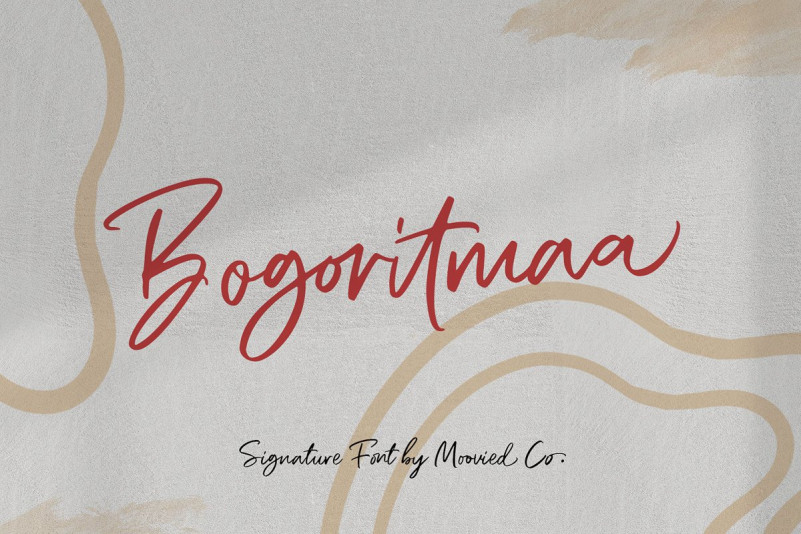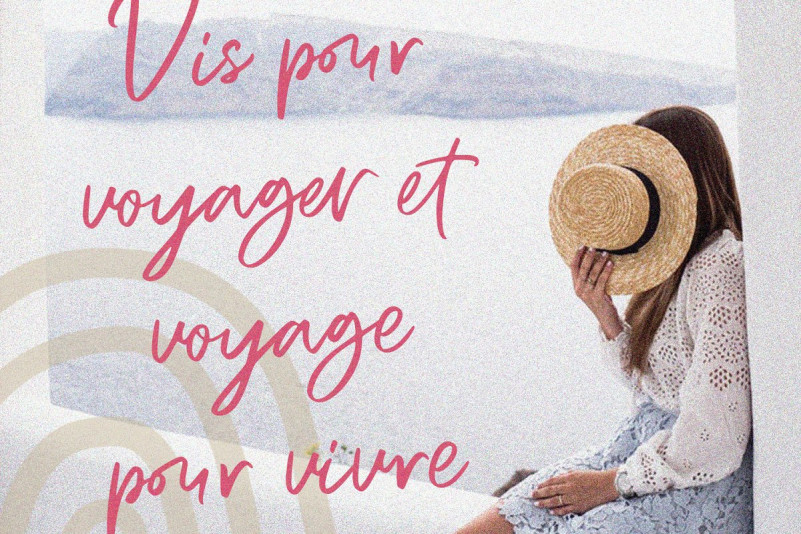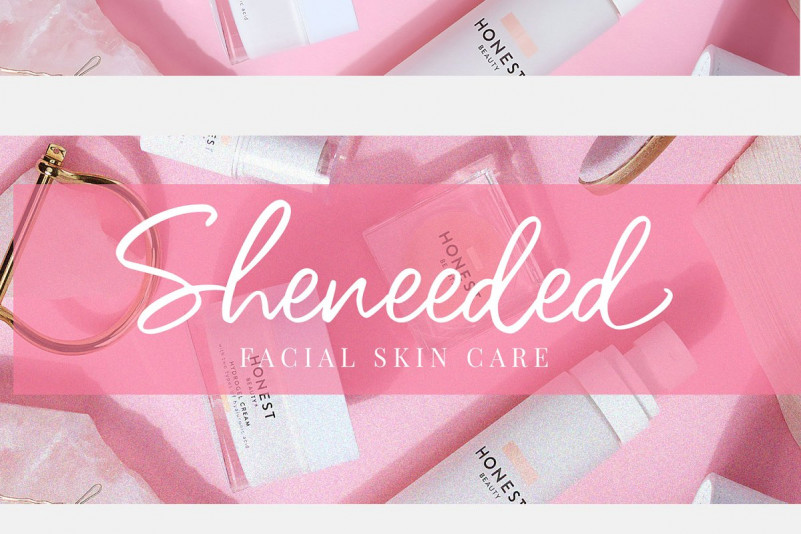
Bogoritmaa Signature font
Bogoritmaa Signature is a modern signature, It is perfect for blogging, social media, branding, product packaging, wedding invitations, branding, headlines, signage, labels, signature, book covers, posters, quotes and more.